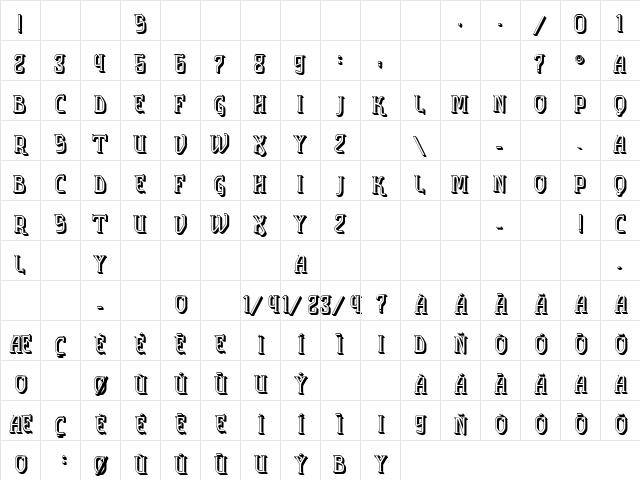
vtks solution 3d Regular
Foundry: douglas vitkauskas
Designer: douglas vitkauskas
Design Context for vtks solution 3d
vtks solution 3d is a composed and adaptable typeface that performs quietly and consistently across a wide range of design contexts.